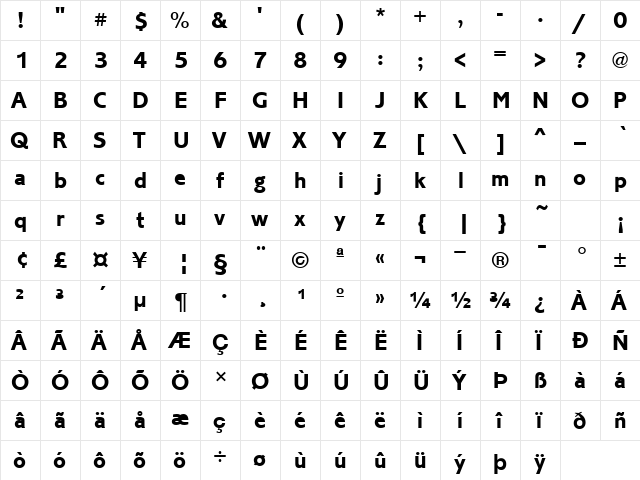
CoriSans Bold
Design Context for CoriSans Typeface
CoriSans is a composed and adaptable typeface that performs quietly and consistently across a wide range of design contexts. The heavy weight commands attention and anchors typographic hierarchies.